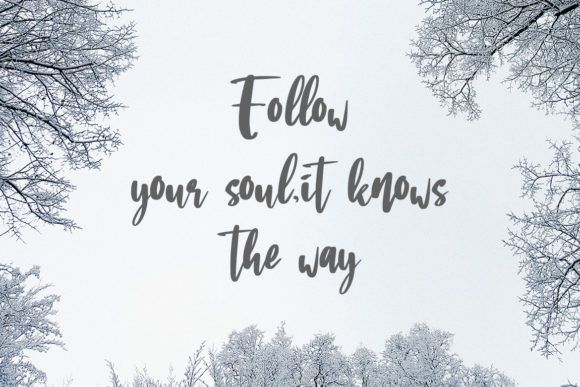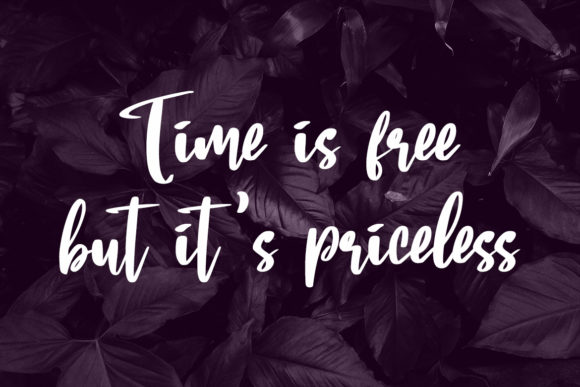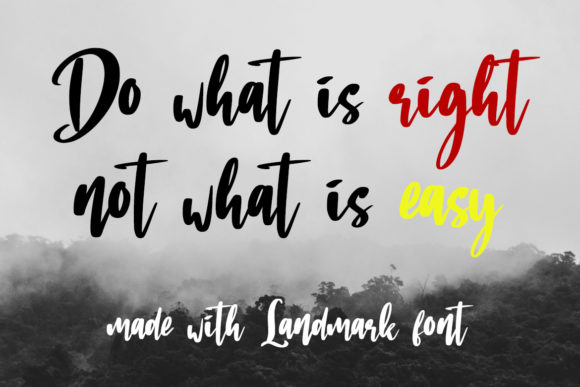
Introduction to Landmark Font Font
Fonts play a crucial role in design, and the Landmark Font font is a typeface that brings both character and versatility to any project. Whether you’re working on a branding project, a website, or a print design, the Landmark Font font offers a unique style that can elevate your work.
Landmarkโs varying baseline and sweet curves make it an incredibly smooth and charming script.
Key Features of Landmark Font Font
- โ High-quality typeface designed for professional use
- โ Includes a wide range of glyphs and characters
- โ Ideal for logos, branding, websites, and print
Why Choose Landmark Font Font?
The Landmark Font font is more than just a typeface โ it’s a design tool that helps you communicate your message with style and clarity. Its unique character set and versatile design make it suitable for a wide range of applications, from elegant invitations to bold headlines.
With its carefully crafted letterforms and balanced proportions, the Landmark Font font ensures readability and visual appeal across all mediums.
What makes Landmark Font font special?
The Landmark Font font stands out with its unique design, exceptional readability, and versatility across various design applications.